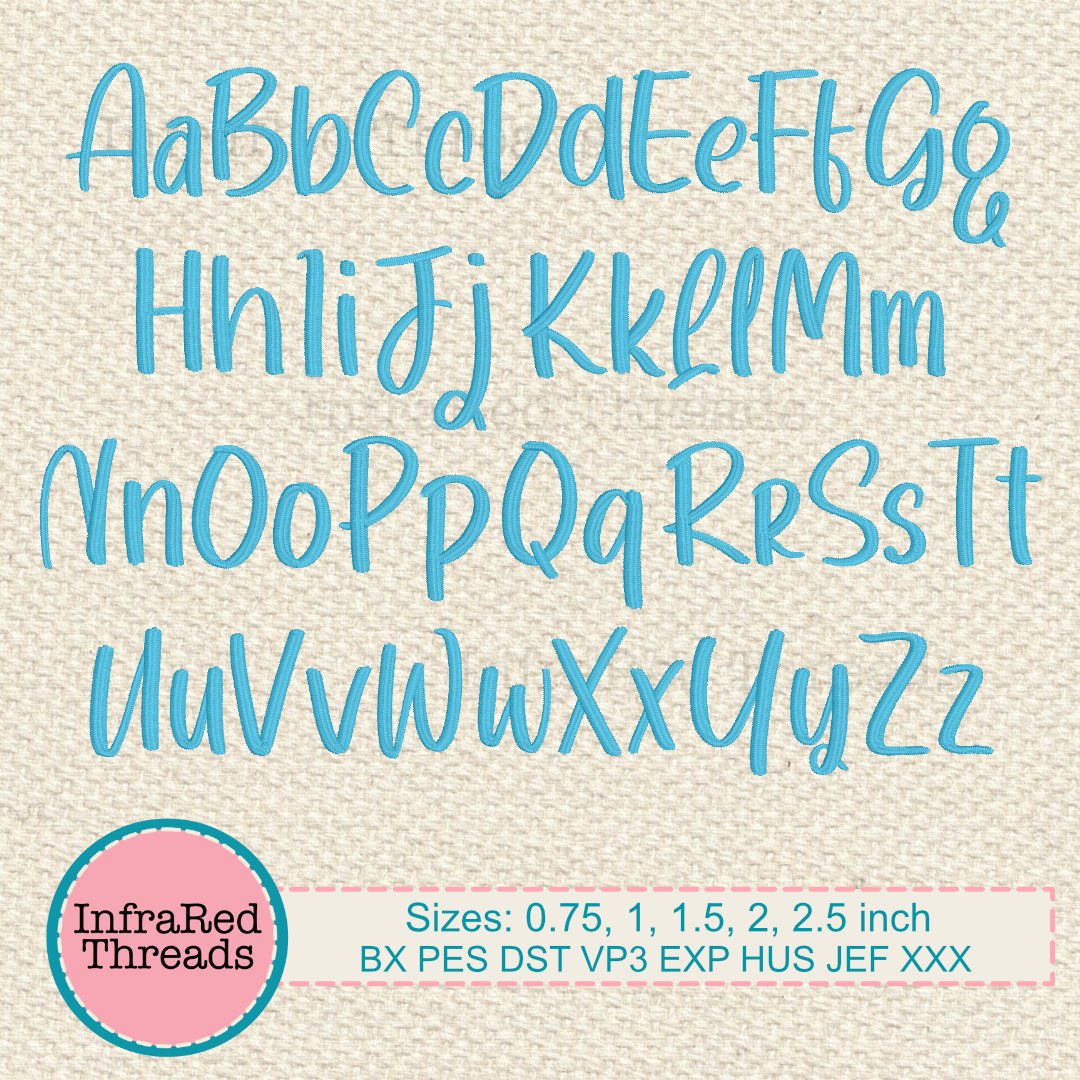
Bethany Font – Handwritten Embroidery Font in 5 Sizes - BX Included
The Bethany Font is a modern handwritten embroidery font with a casual and approachable style. This playful yet clean design is perfect for names, quotes, labels, or everyday personalization. Each letter has a lightly slanted, natural feel, ideal for adding a friendly touch to your embroidery projects.
Great for crafters, gift-makers, and small business use, the Bethany Font stitches smoothly in a wide range of sizes, making it a versatile addition to your font library.